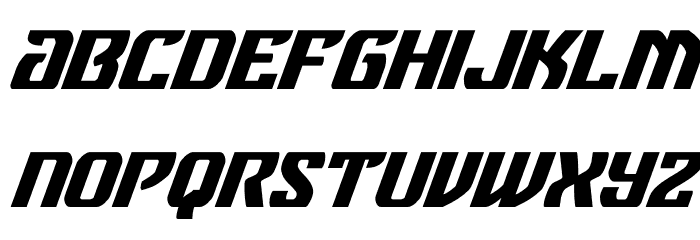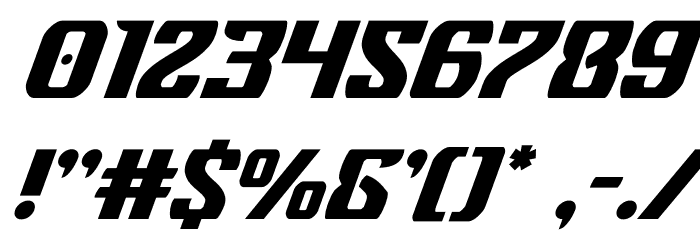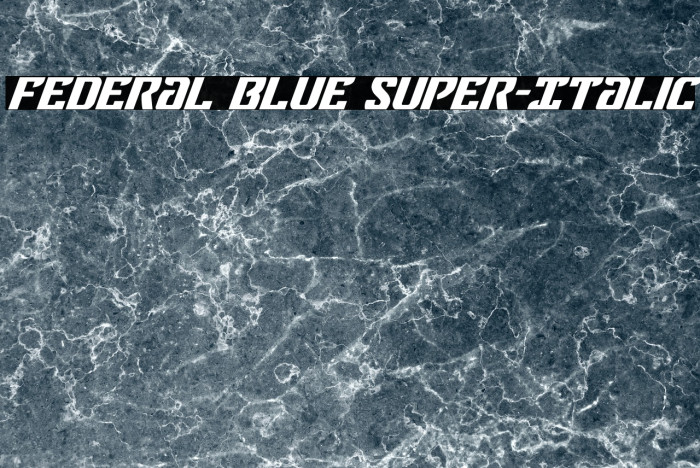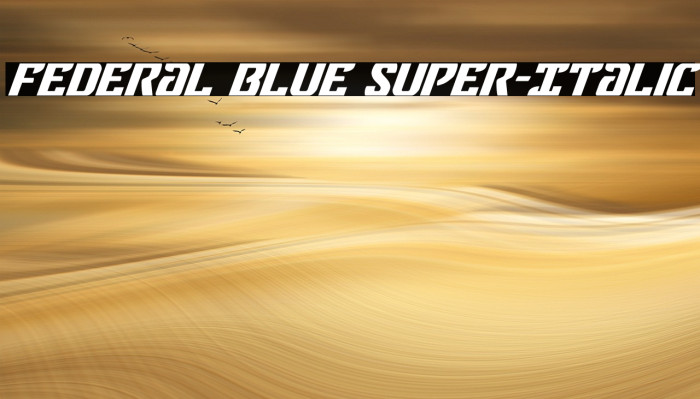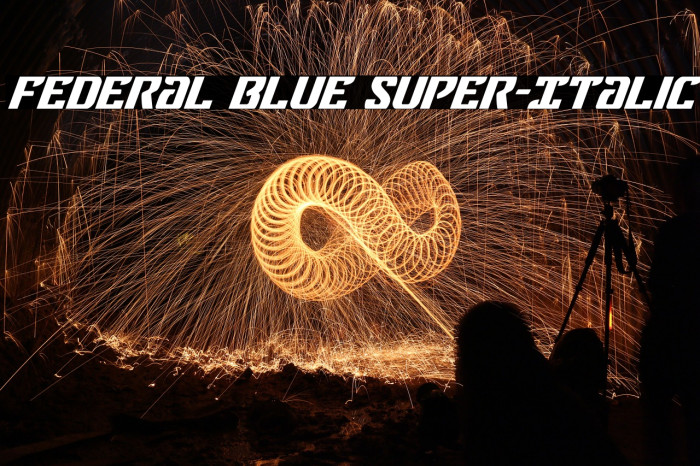
Federal Blue Super-Italic Font
This font exhibits a bold and dynamic style, characterized by its sharp angles and italicized form. The letters are slanted, giving a sense of motion and speed, which is further emphasized by the thick, uniform strokes. The uppercase and lowercase letters maintain a consistent style, with a strong geometric influence. Numbers and special characters are designed to match the boldness and angularity of the alphabet, ensuring a cohesive appearance across all glyphs. The font's aggressive and modern aesthetic makes it suitable for impactful and attention-grabbing designs.
A bold, italicized font with sharp angles and a dynamic, modern style.
- Proposed Projects: Ideal for sports branding, automotive designs, video game titles, and dynamic posters.